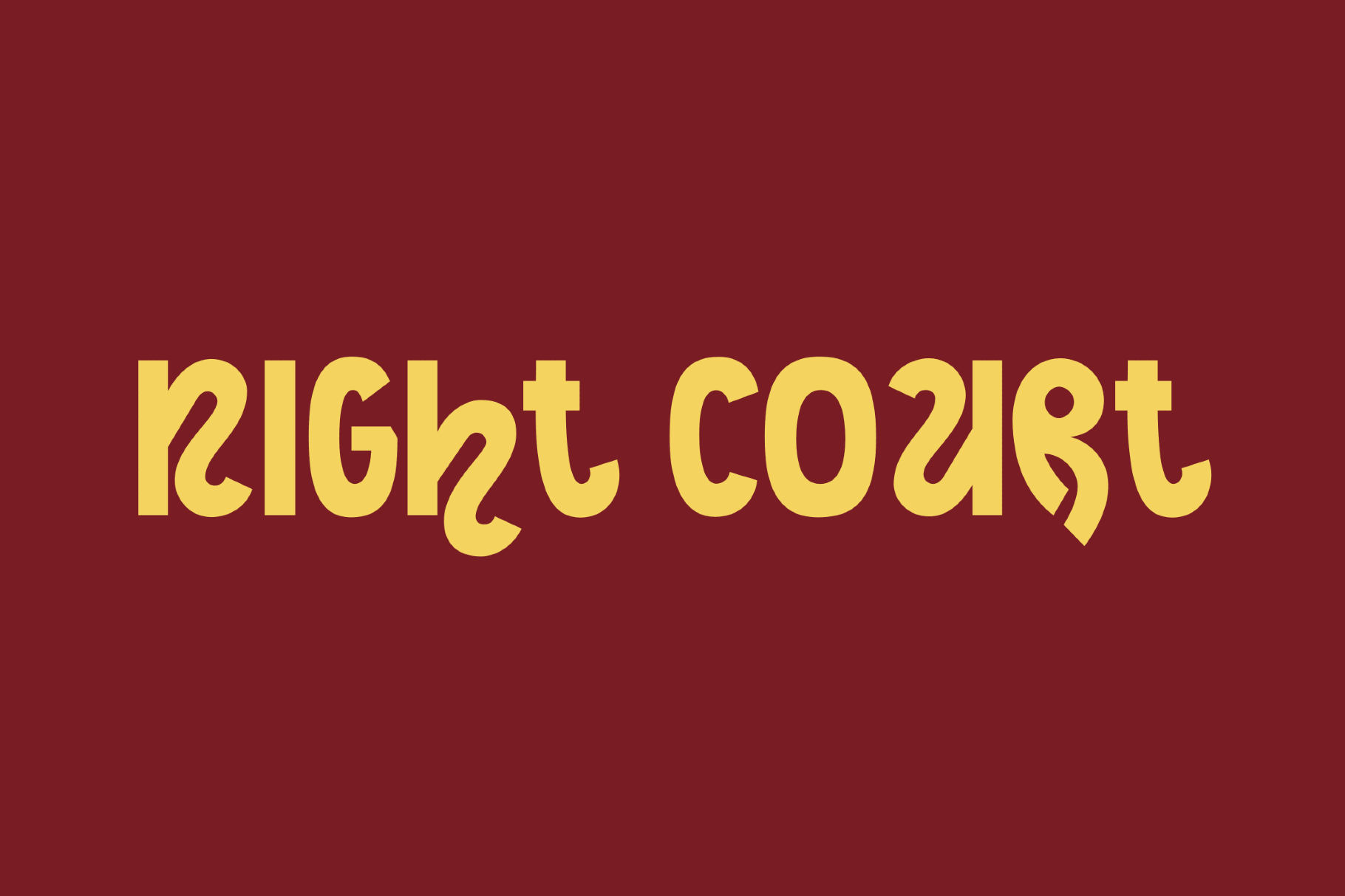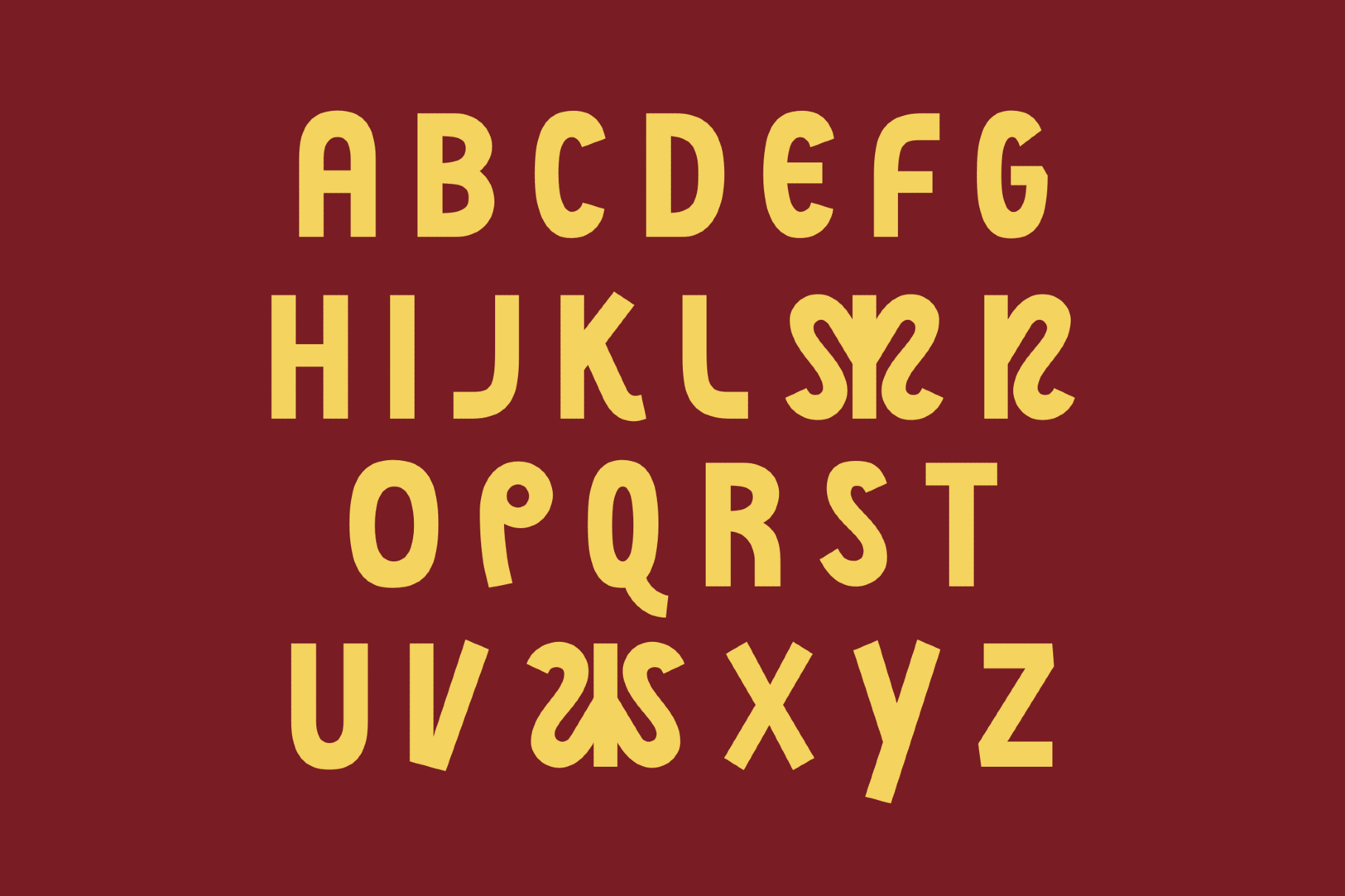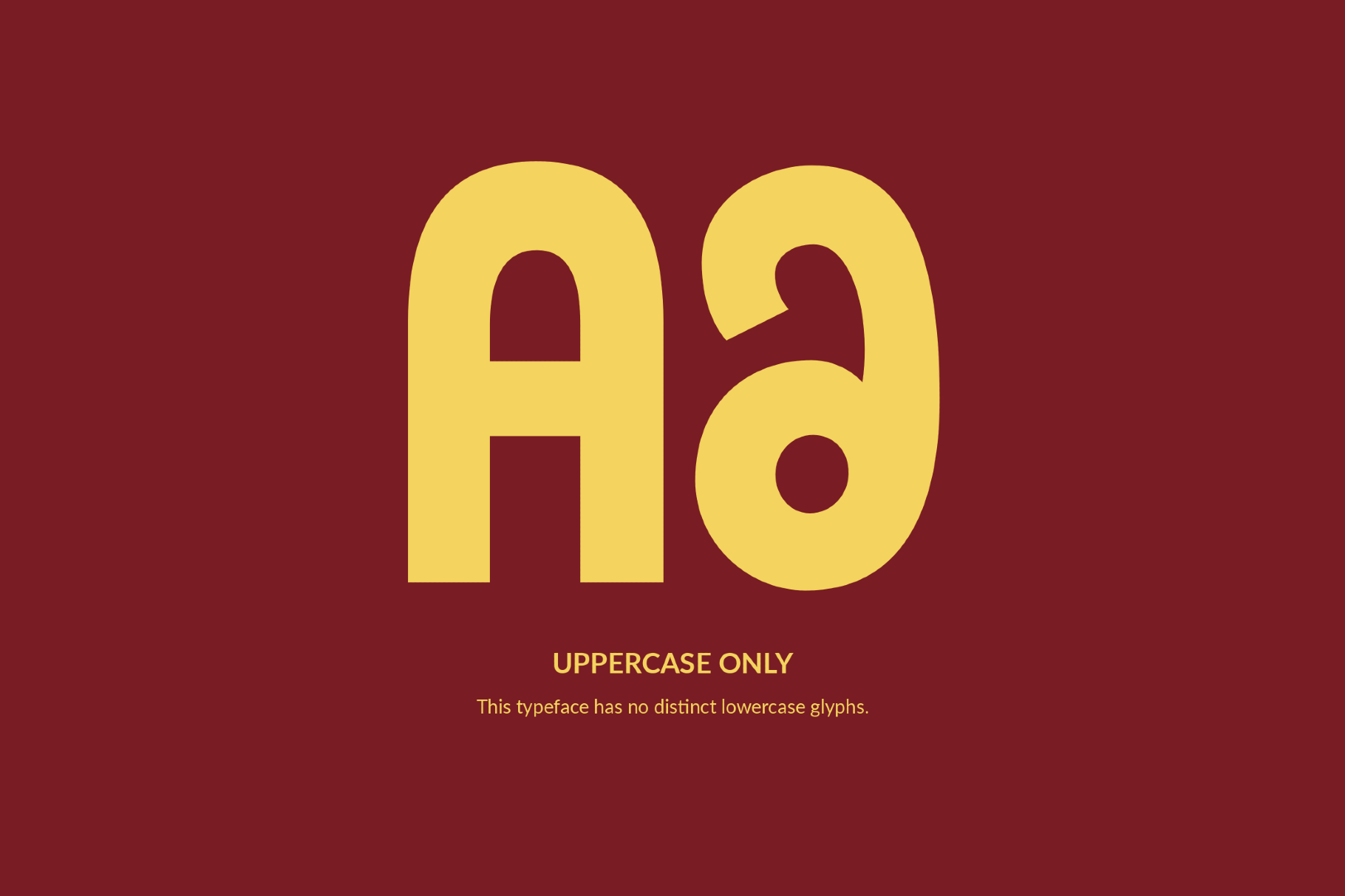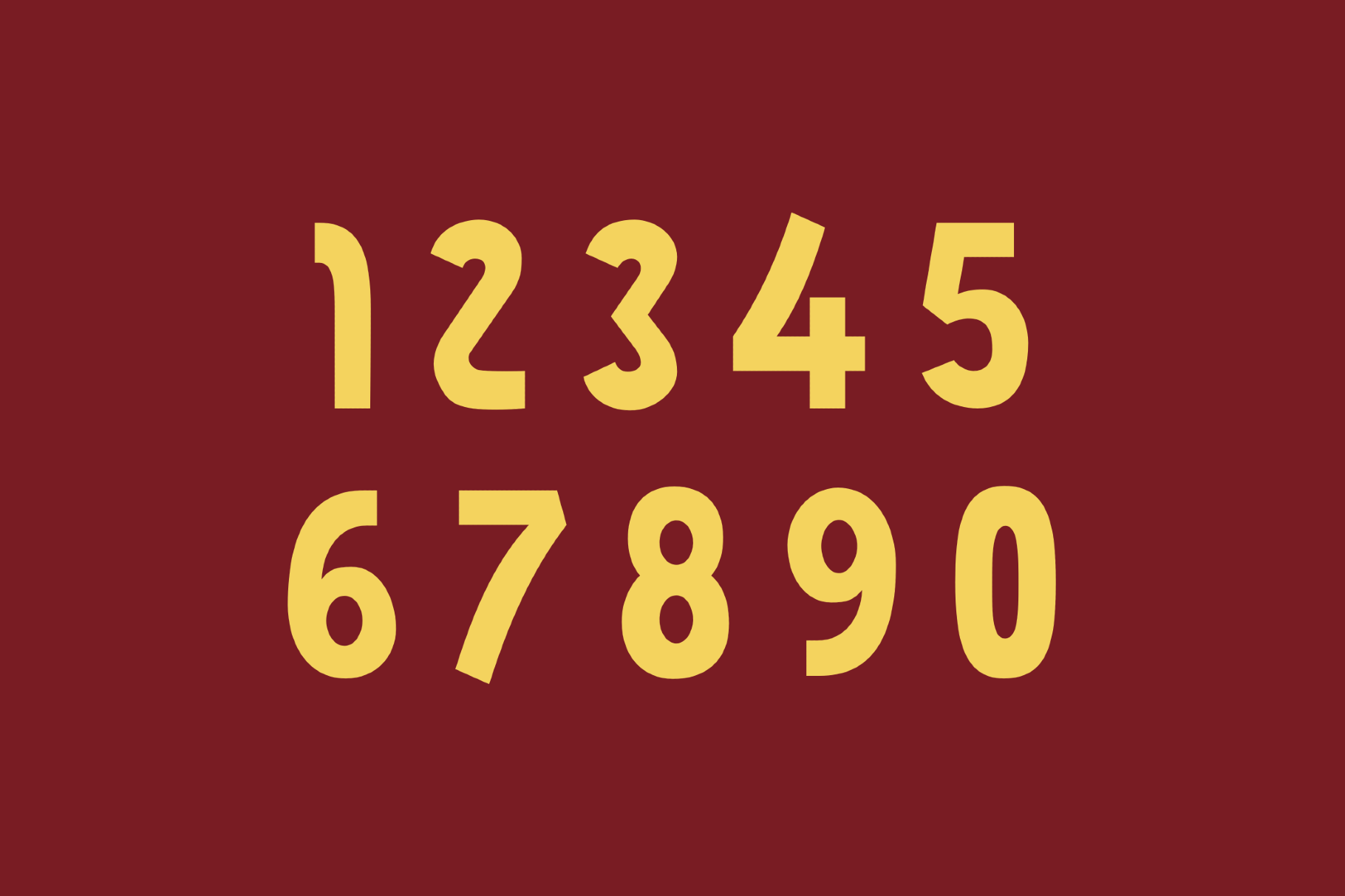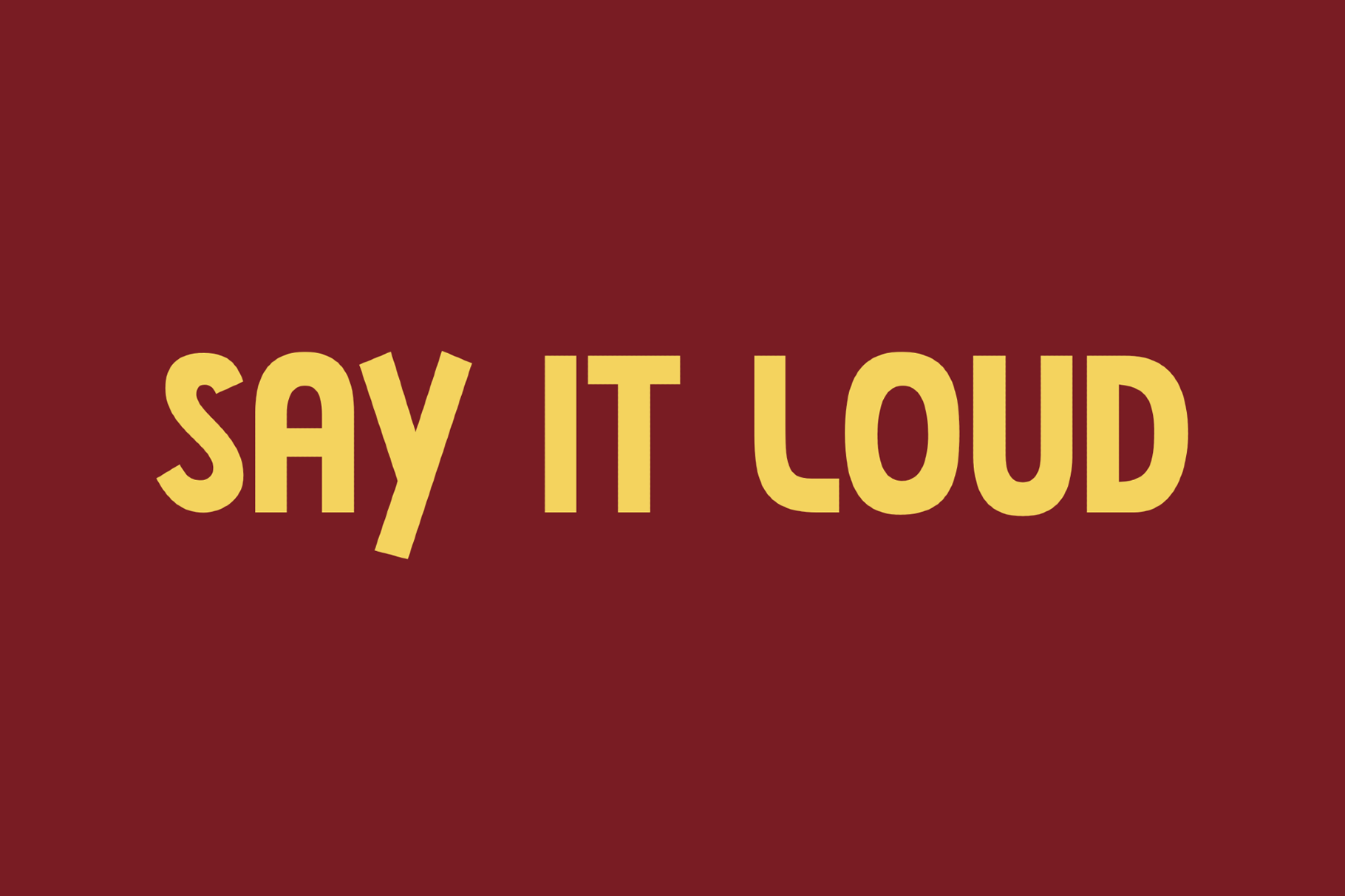
Night Court Font
Night Court
Night Court is a playful display sans with narrow proportions, rounded terminals, and quirky inward curls. It recalls storybook jackets and decorative lettering from early-20th-century posters, recast in a lighter comic key. This flowy, funny font is built for poster headlines, children’s books, packaging, editorial titles, café graphics, and invitation design.